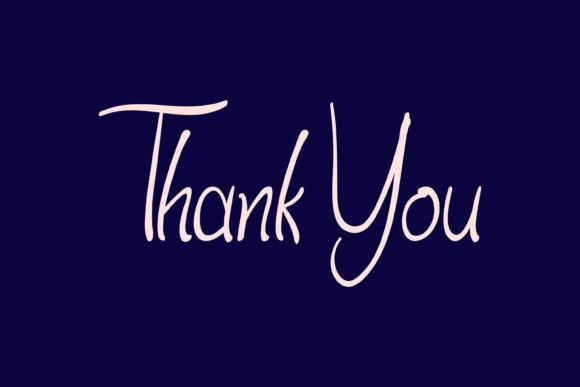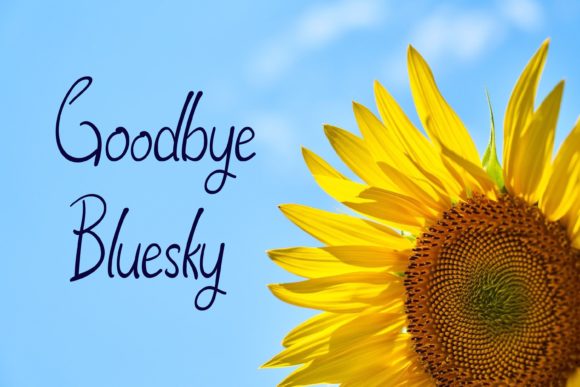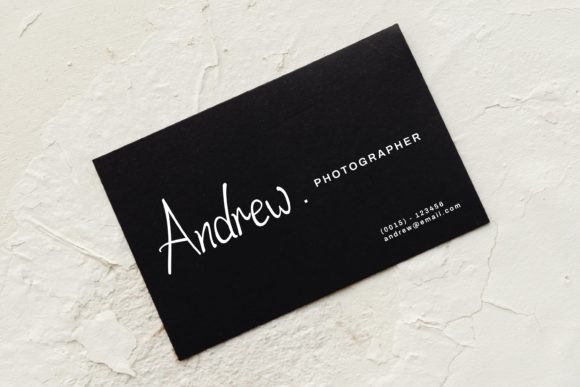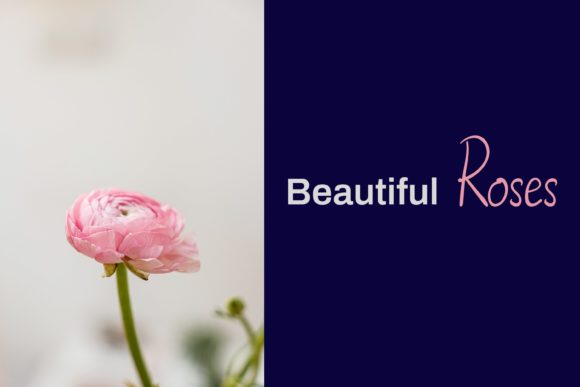
The Elusive Perfect Font: My Encounter with Aselia
I’ll never forget the frustration of working on a logo design project, only to hit a roadblock when it came to finding the perfect font. My client wanted something elegant, yet playful; stylish, yet not too over-the-top. I scoured the internet, tried out countless fonts, but nothing seemed quite right. That was until I stumbled upon Aselia Font. ✨
Aselia is a stylish and dainty script font that has become a go-to in my design toolkit. Its elegant lines and beautiful swashes make it perfect for a variety of projects, from logos and branding to labels and more. In this article, I’ll share my experience with Aselia, its features, and how to make the most of it in your designs.
An Honest Review of Aselia Font
• ✨ Elegant and dainty script style that’s perfect for projects that need a touch of sophistication
• 🔥 Highly versatile and can be used for a wide range of projects, from logos to labels
While Aselia is an excellent font, there are a few things to keep in mind: ⚠️
• 🤔 Some users may find the font a bit too delicate for certain projects, such as large-scale signage or bold headlines
• ⚠️ As with any script font, it may not be the best choice for body text or long paragraphs of content
The Story Behind Aselia Font
Aselia Font was designed with the intention of creating a beautiful, elegant script font that’s both stylish and versatile. While the designer’s exact inspiration may be unknown, it’s clear that Aselia was crafted with love and attention to detail. 💕
The font’s creator aimed to produce a typeface that’s both classic and modern, making it suitable for a wide range of projects. Whether you’re working on a logo, branding, or packaging, Aselia is sure to impress. 📦
Font Name Aselia Font
Author DnB Studio
Q: What is Aselia Font?
A: Aselia Font is a stylish and dainty script font that’s perfect for projects that need a touch of elegance.